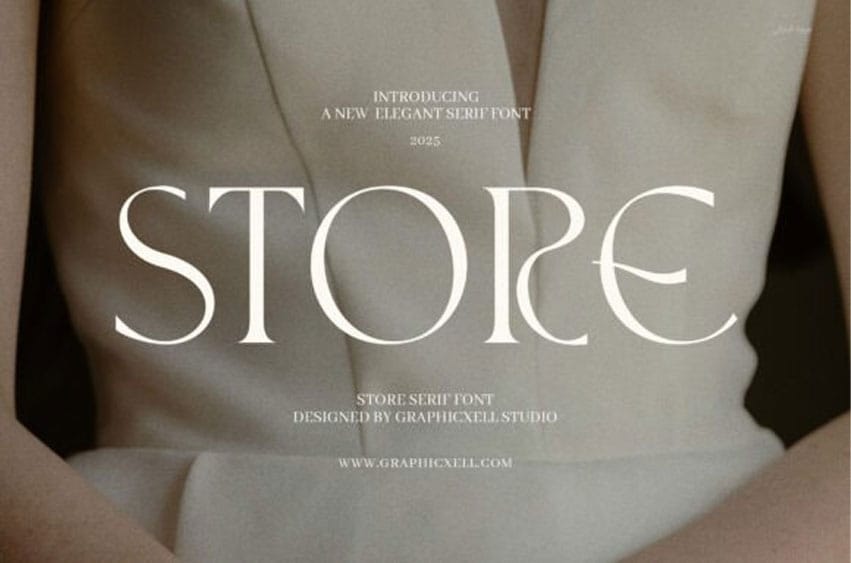
Store Font is a masterful blend of contemporary design and classic sophistication. Crafted with meticulous attention to detail, this font exudes an air of refinement while maintaining a fresh, modern aesthetic. With its beautifully designed ligatures and alternate letterforms, *Store Elegant Serif* stands out as a versatile typeface that captures attention while offering a touch of luxury. Designed for creatives who demand both style and functionality, this font is perfect for an array of design applications.
Whether you’re building a sleek, minimalistic logo, curating an upscale brand identity, or enhancing a magazine layout with timeless elegance, *Store Elegant Serif* provides the ideal solution. Its clean lines and graceful serifs evoke a sense of heritage, yet its modern twists and fluidity make it adaptable for today’s design trends. One of the standout features of this font is its remarkable collection of ligatures and alternate characters. These unique forms add a sense of personalization and flair, giving every word a distinctive personality. Whether used for branding, advertisements, websites, or product packaging, the font’s versatility shines through, making it a perfect choice for high-end boutiques, luxury goods, food and beverage promotions, and more.
Not only does *Store Elegant Serif* excel in both print and digital mediums, but its flexibility ensures it works seamlessly across various platforms. Whether you’re designing for print or creating captivating content online, this font maintains its charm and legibility across all uses. The balanced combination of modern and classic elements makes it the ultimate choice for those who appreciate quality and style.
Elevate your design projects with *Store Elegant Serif Font* — the perfect balance of elegance, readability, and sophistication, designed to leave a lasting impression. It’s the ideal typeface for anyone looking to infuse their work with a modern, luxurious, and timeless feel.